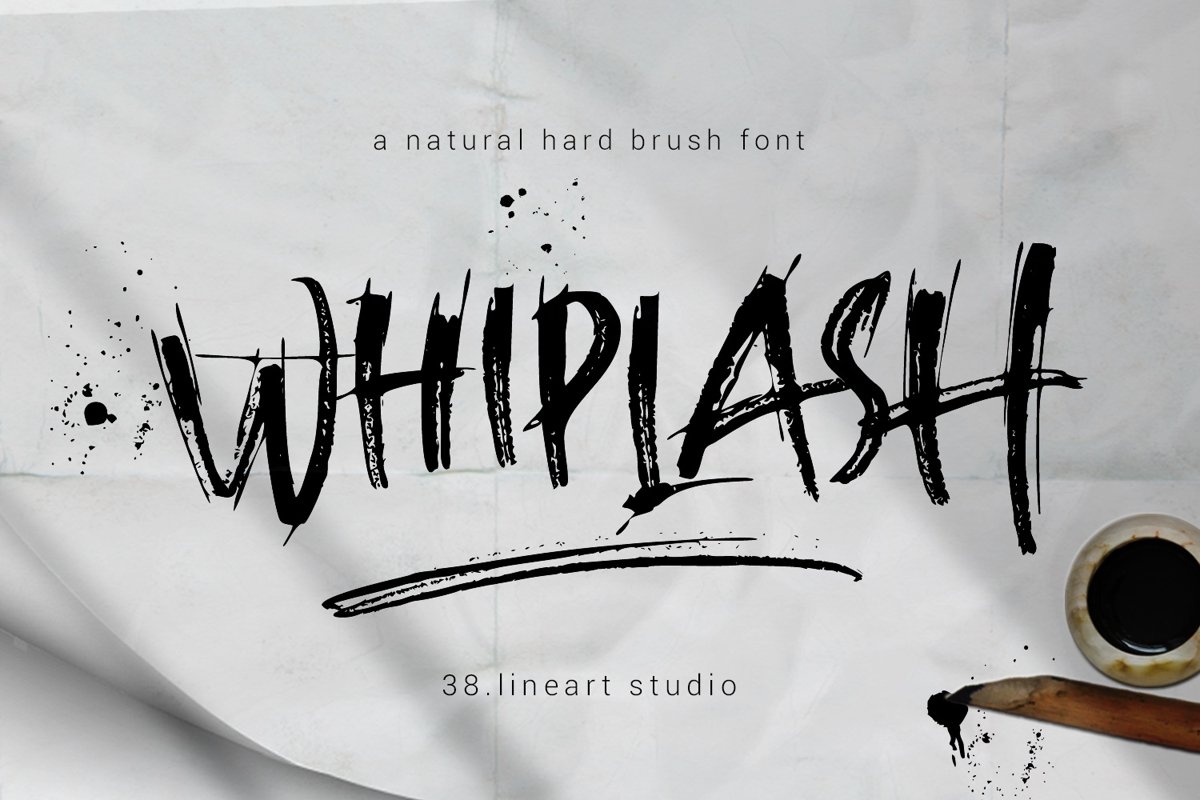
Whiplash
Whiplash is a natural handwritten font with firm strokes as the main character.
All-caps and mixed-match are the main concepts of this font, where the uppercase and lowercase can be pair according to your taste.
This font has a very strong and very prominent character that will distract the eyes. This is a great choice when used as a title on banners, posters, book titles and even magazine covers.
Modern lifestyle brands such as fashion, cosmetics, and outdoor sports are also a trend to use this font style. You who like travelling can also try to write a caption or quote, people are increasingly curious about the mystery of your adventure and short notes.
Besides being equipped with multi-language, we also equip ligature such as ee, ll, gg, oo, ss, tt, pp, rr.